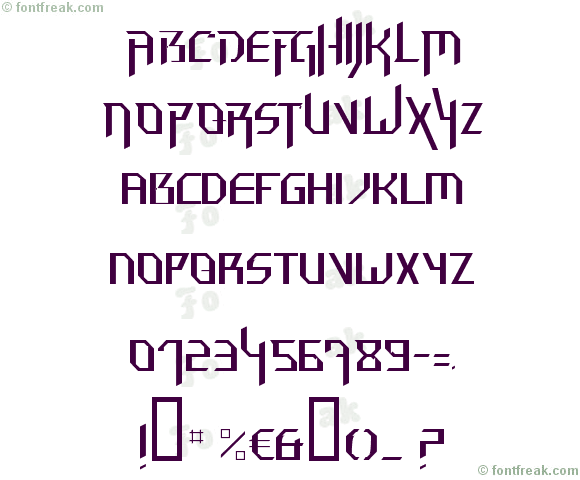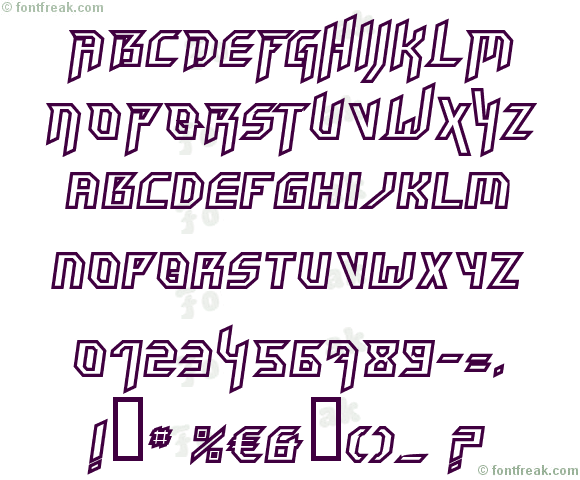
Hammerhead
HammerheadOutline Italic
Hammerhead Thin Italic
Hammerhead Thin
Hammerhead Italic
HammerheadOutline
The Hammerhead font, designed by Dieter Schumacher in 1999, is a striking display typeface that falls under the category of decorative fonts. Its unique visual style features bold, angular letterforms that create a sense of strength and dynamism. The stroke weight is thick and pronounced, contributing to its robust appearance, while the italic variant adds an energetic slant, making it ideal for capturing attention. The spacing between letters is tight, enhancing the impact of each character and creating a cohesive look across text blocks. The Hammerhead font also showcases a distinctive outline version, which allows for creative layering and adds depth to designs.
This font is particularly well-suited for a variety of applications. It works brilliantly for movie posters, where dramatic flair is essential, and for branding in industries like sports, where boldness is key. Additionally, Hammerhead can be effectively utilized in restaurant menus to convey a contemporary vibe, or in promotional materials for events, making them stand out in crowded spaces. Small business owners and graphic designers will find Hammerhead an excellent choice for marketing materials that demand attention and evoke a strong brand identity.
Targeted towards graphic designers, small business owners, and content creators, the Hammerhead font brings an edgy and modern aesthetic to any project. Its freeware license means that anyone can access this unique typeface for personal or commercial use, making it an invaluable resource for those looking to elevate their designs without breaking the bank.
In conclusion, the Hammerhead font stands out for its bold, geometric design and versatility across various applications. With the Hammerhead font free download available, it offers an exciting option for anyone looking to make a memorable statement in their typography.